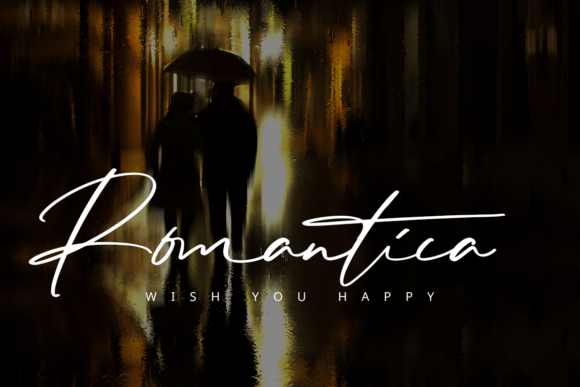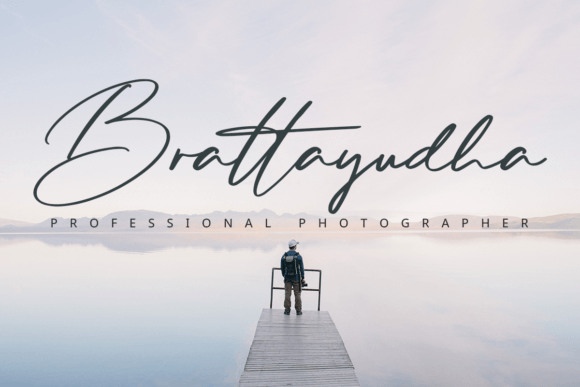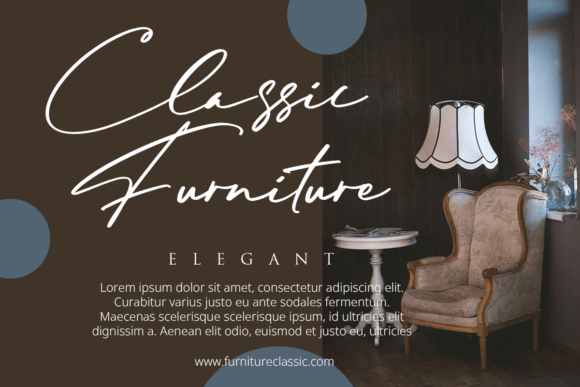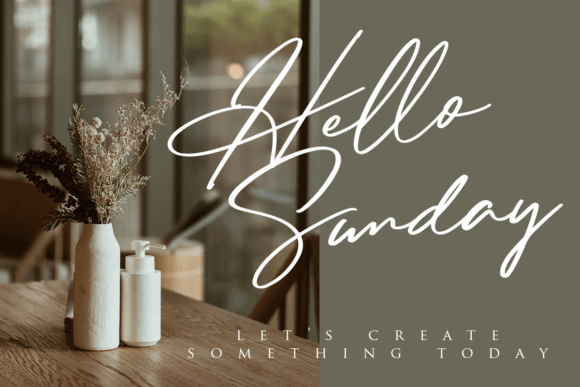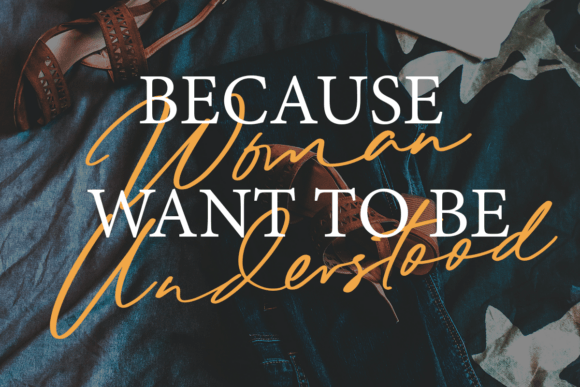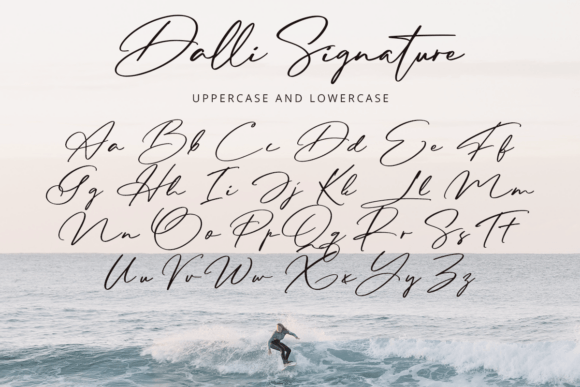
Introduction to Dalli Signature Font
Dalli Signature is a sleek and elegant signature font that adds a personal and sophisticated touch to your designs.
Perfect for branding, wedding invitations, logos, business cards, and social media posts, this font exudes charm and professionalism with its smooth, handwritten style Dalli Signature is ideal for anyone looking to create a modern and classy design effortlessly.
Key Features of Dalli Signature Font
Why Choose Dalli Signature Font?
Dalli Signature Font offers exceptional quality and versatility, making it a valuable addition to your design toolkit. Whether you’re creating for personal projects or commercial use, Dalli Signature Font delivers professional results.